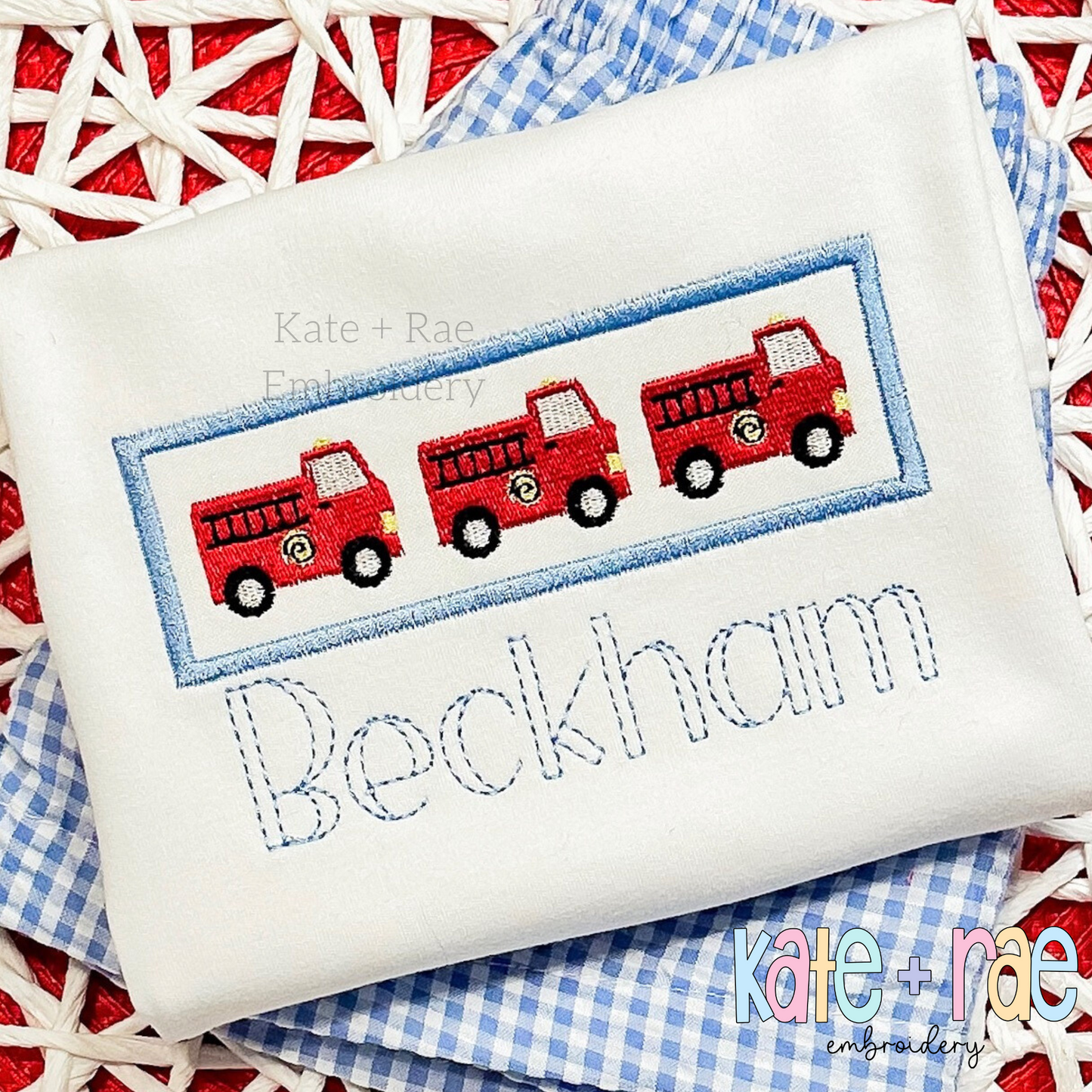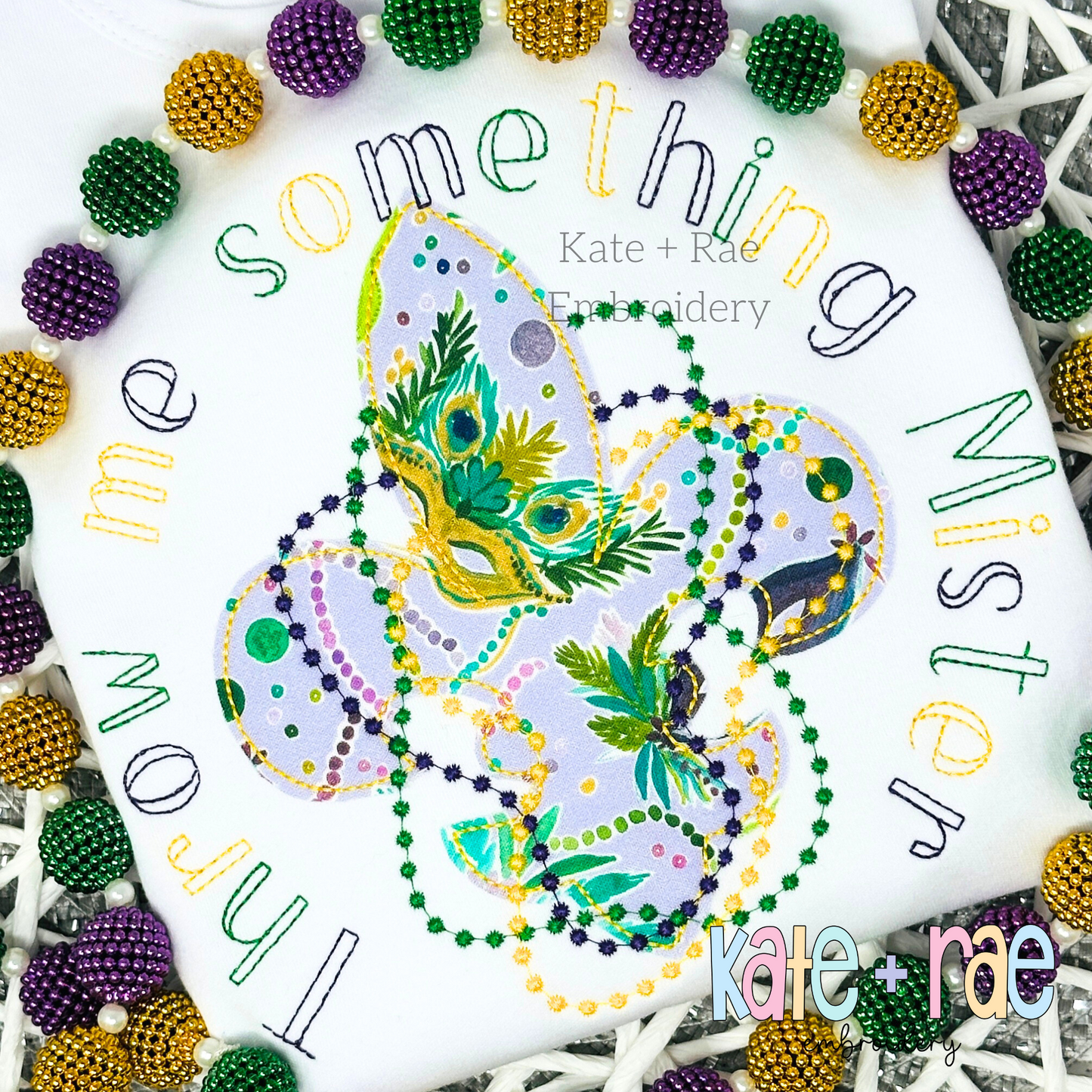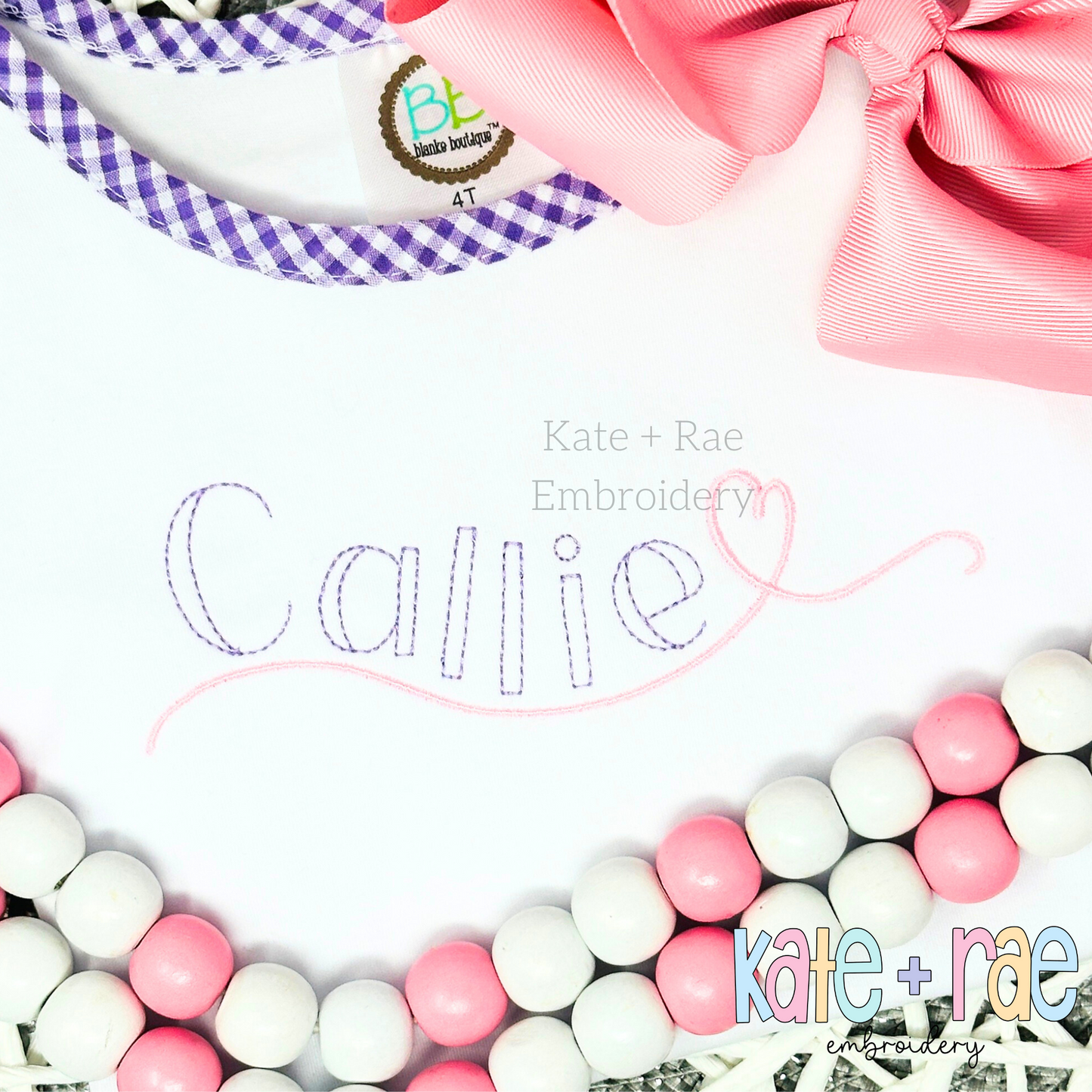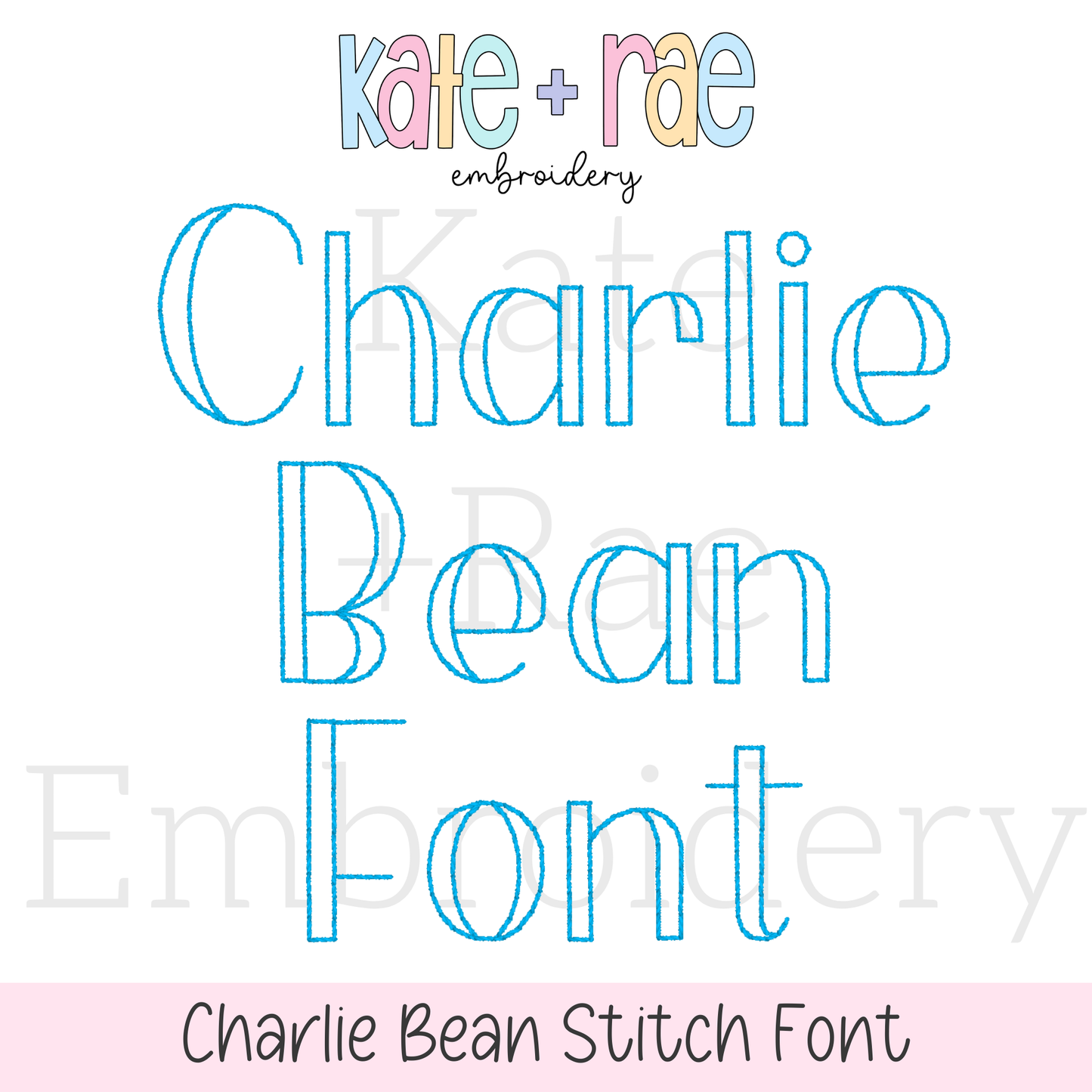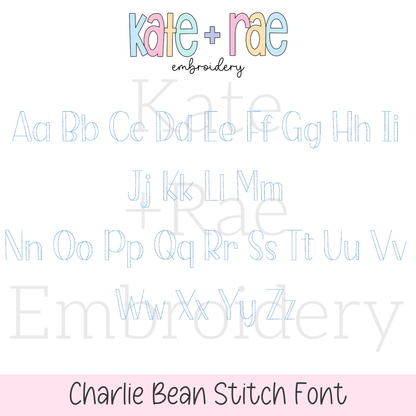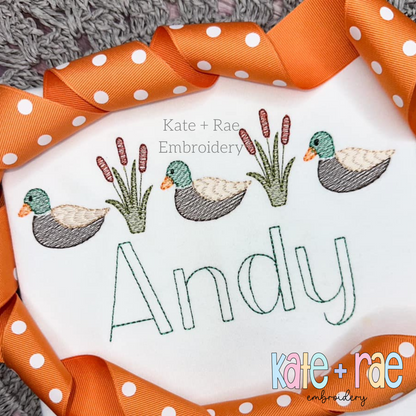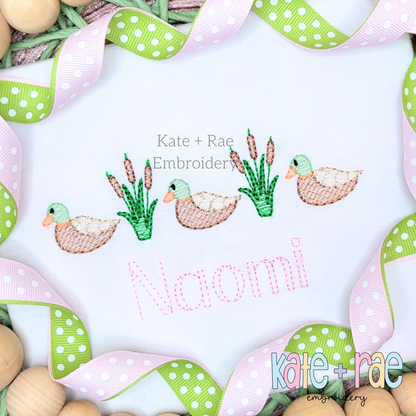
Charlie Bean Stitch Embroidery Font
Meet Charlie, a classic bean stitch embroidery font! Personalize names, monograms, sweatshirts, and kids' outfits with a handmade look.